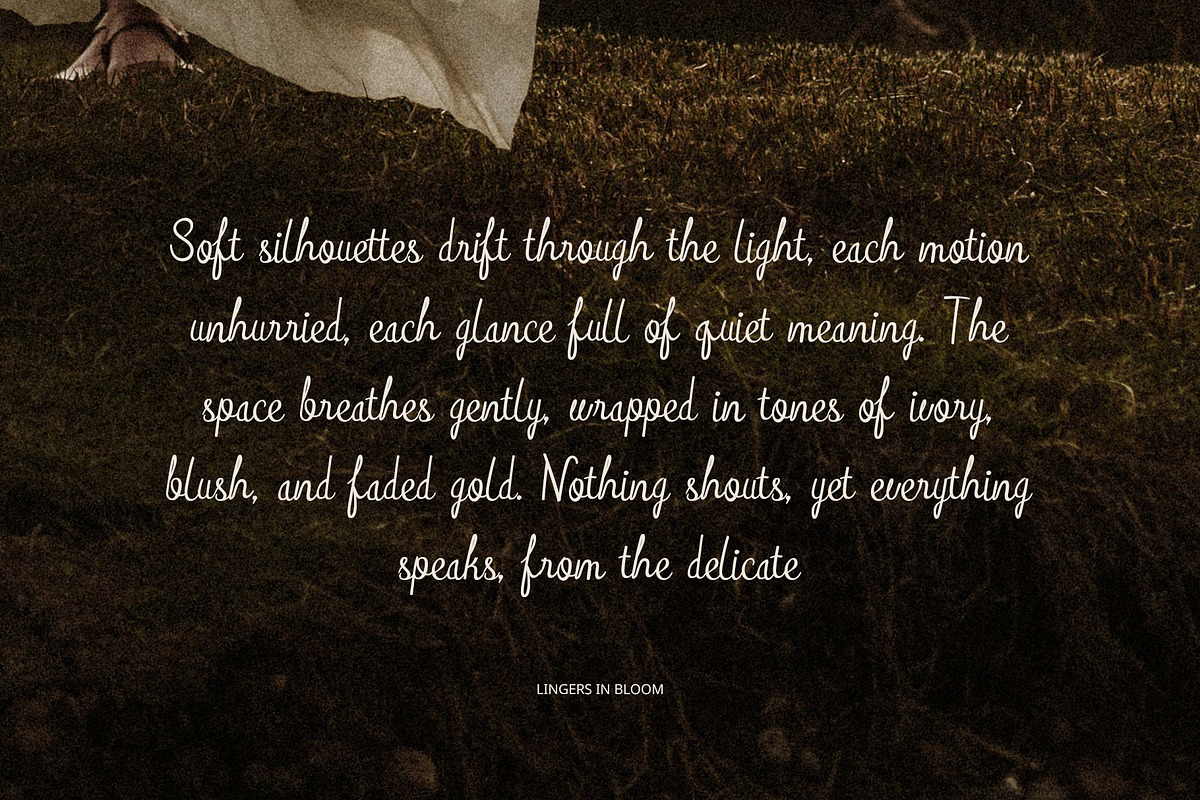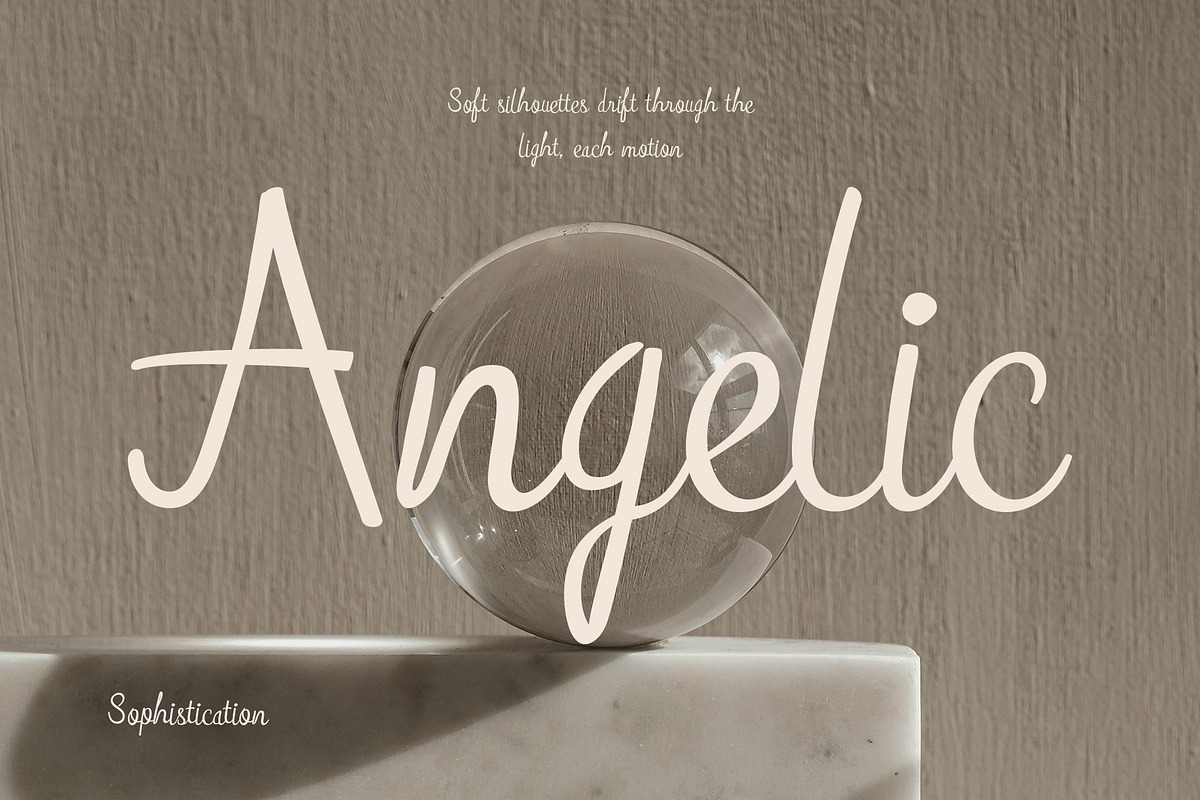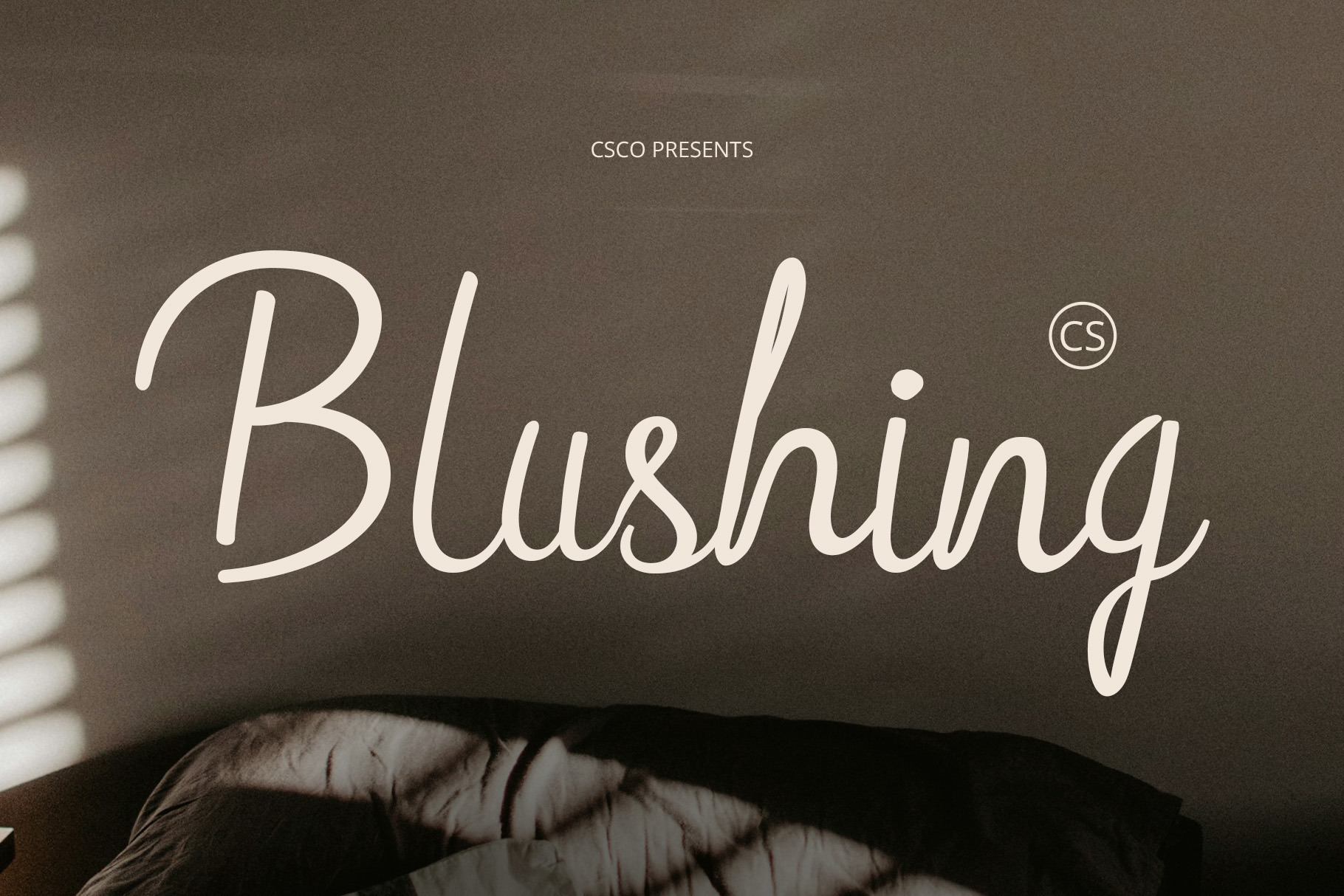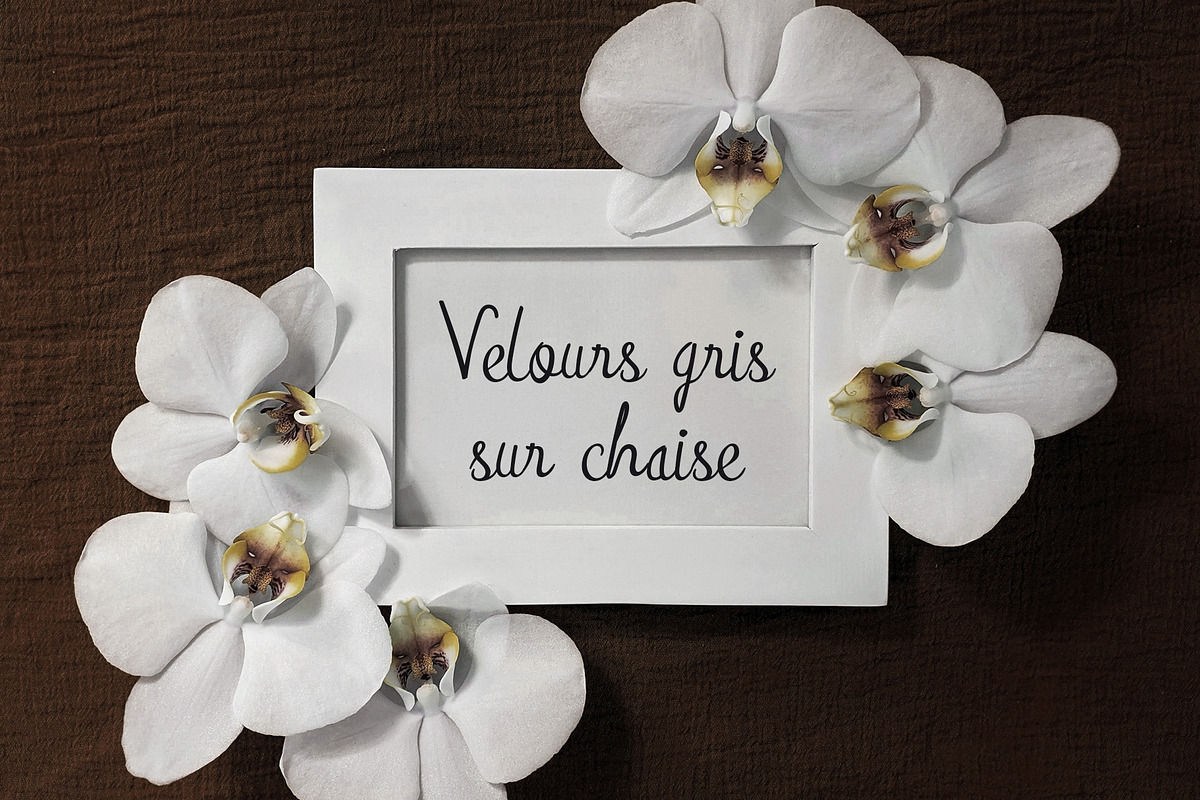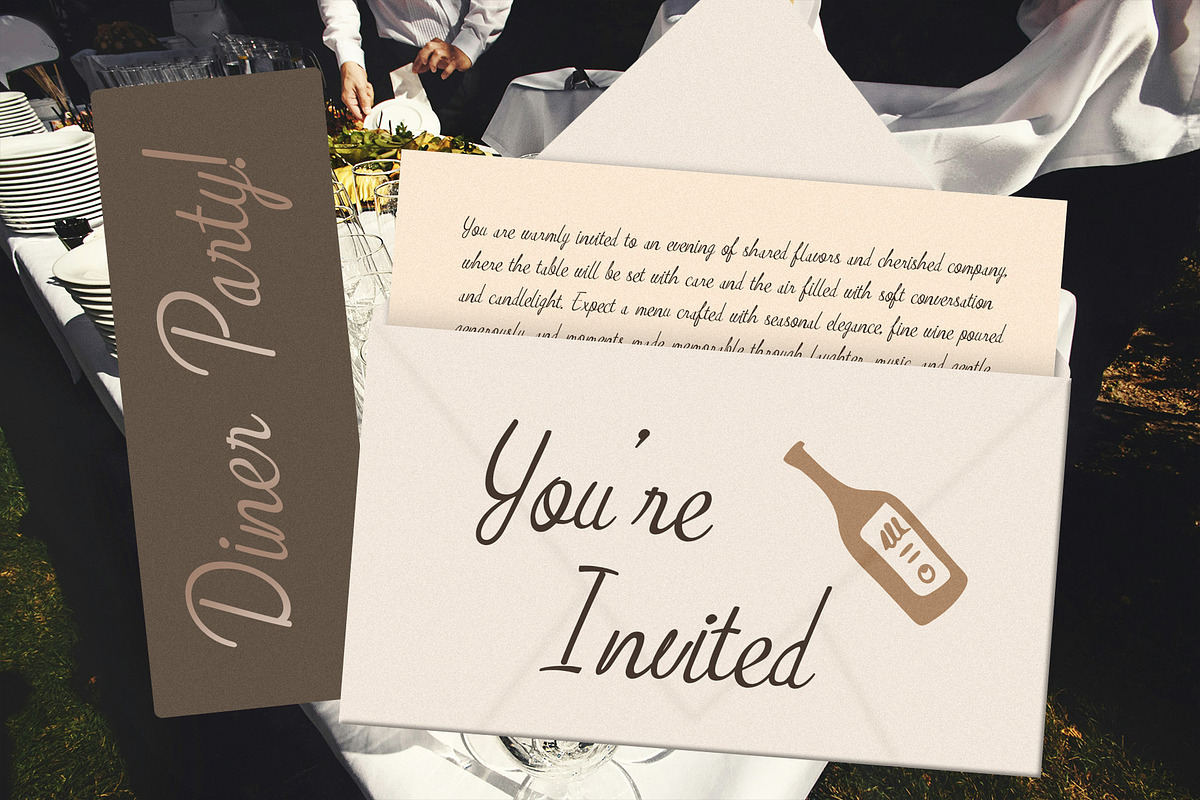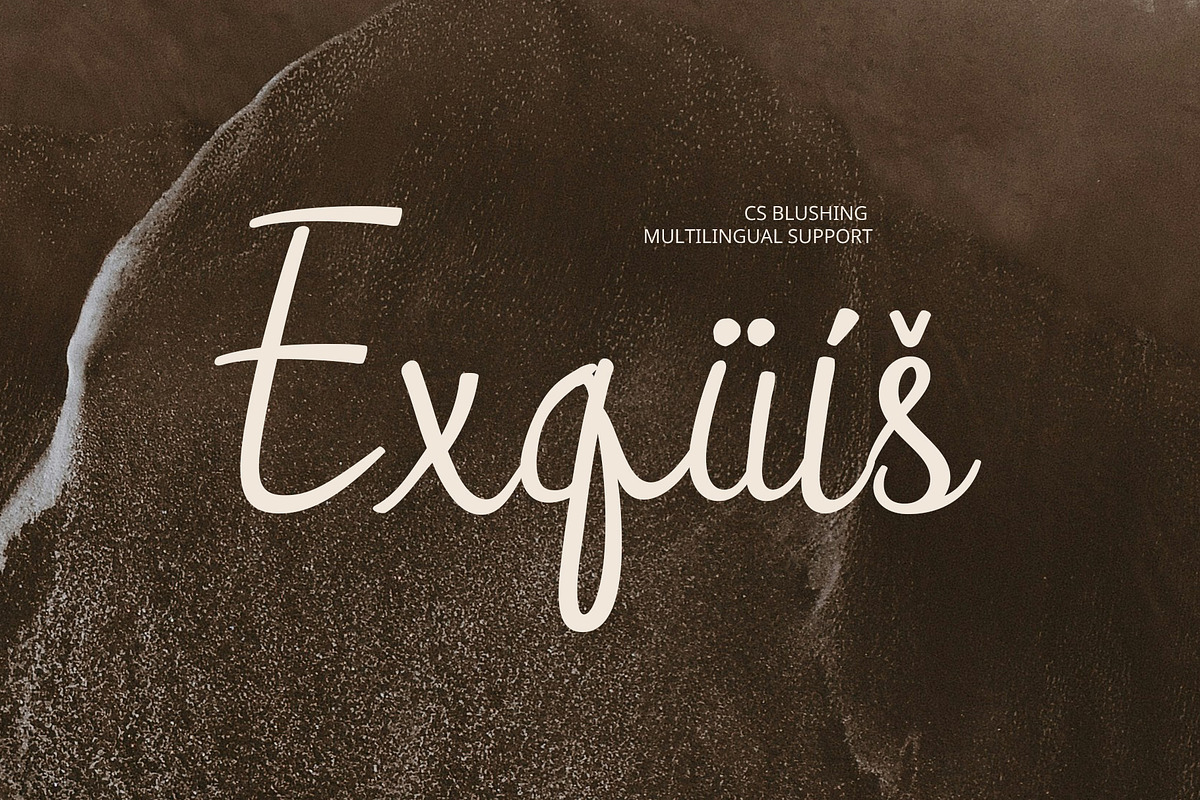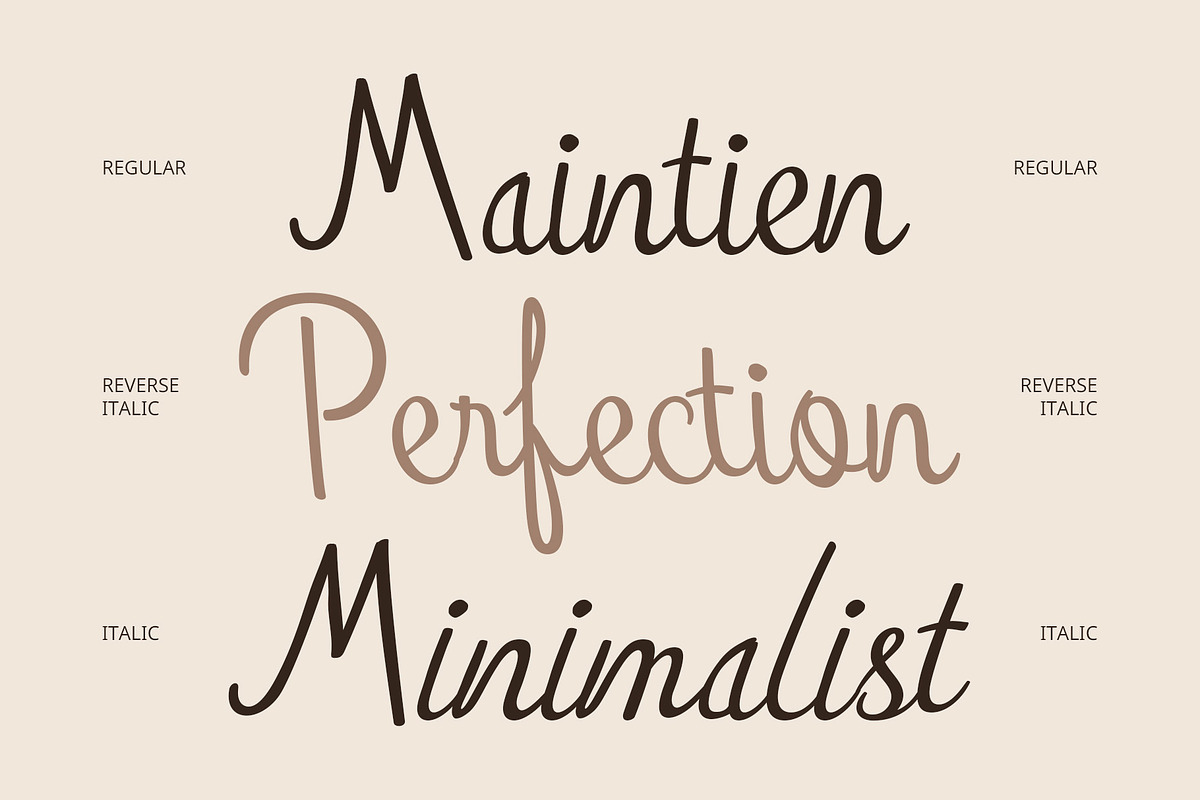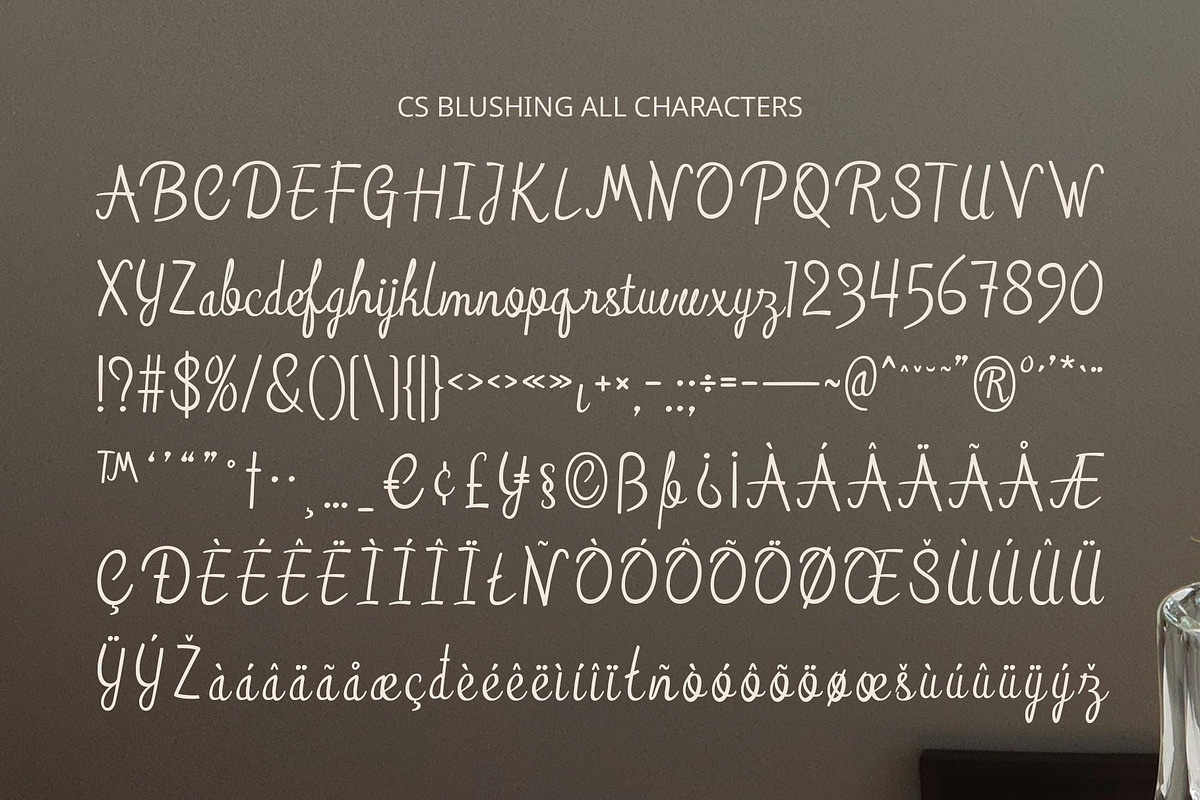
CS Blushing – Script Font
CS Blushing – Script Font: Grace in Every Curve
Clean, Flowing Letterforms for a Soft Visual Feel CS Blushing is a modern script font that embraces the beauty of clean handwriting. With graceful strokes and fluid movements, each letter flows naturally, creating a sense of softness and sophistication. It balances contemporary clarity with personal charm, making it ideal for designs that need a gentle, romantic impression.
Elegant Style with a Feminine Touch Designed to radiate elegance, CS Blushing captures the essence of femininity and refinement. Its smooth curves and subtle rhythm convey warmth, making it the perfect choice for wedding materials, lifestyle branding, or aesthetic visual content where beauty and tenderness are key.
Perfect for Romantic and Creative Applications Whether you’re creating invitations, thank-you cards, branding for beauty or fashion, or personal stationery, CS Blushing shines in visual projects that need to appear sweet, expressive, and polished. Use it in invitations, social media quotes, greeting cards, or brand packaging to infuse a touch of modern romance and natural grace into your work.
Versatile for Charming Visual Projects From feminine branding to editorial designs, CS Blushing is versatile enough to enhance various applications. Whether in print or digital media, its clean lines and expressive curves ensure every message feels lovingly designed and visually captivating.
- CS Blushing Regular
- CS Blushing Italic
- CS Blushing Reverse Italic